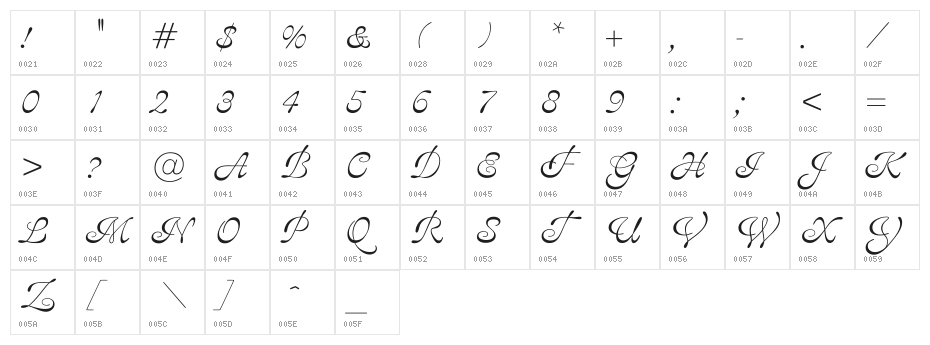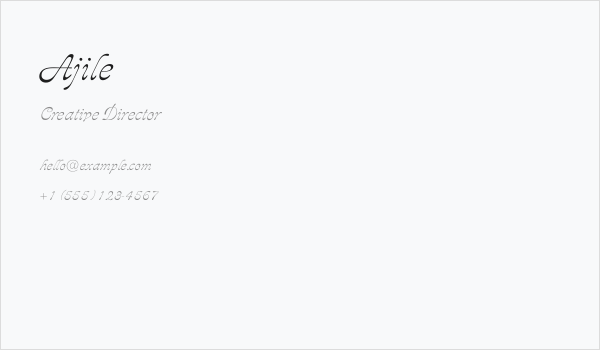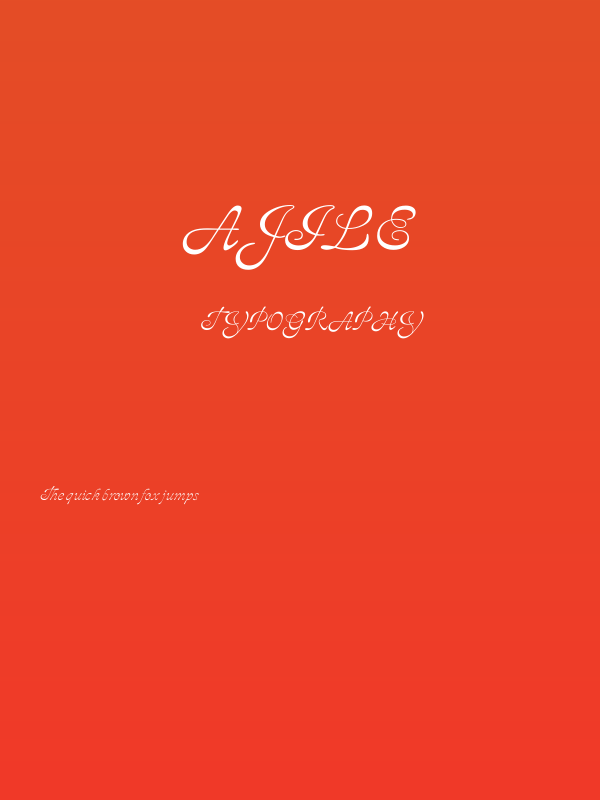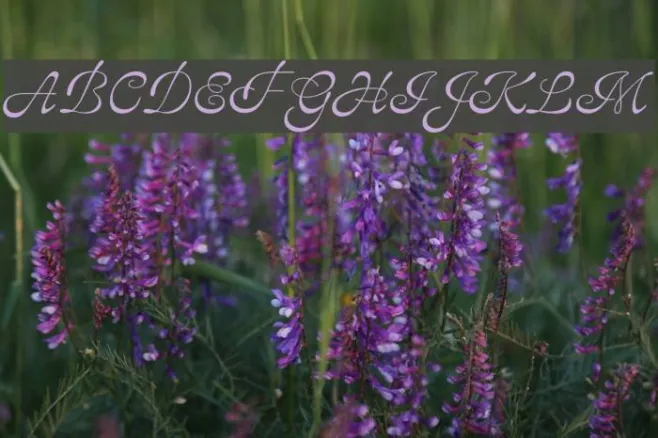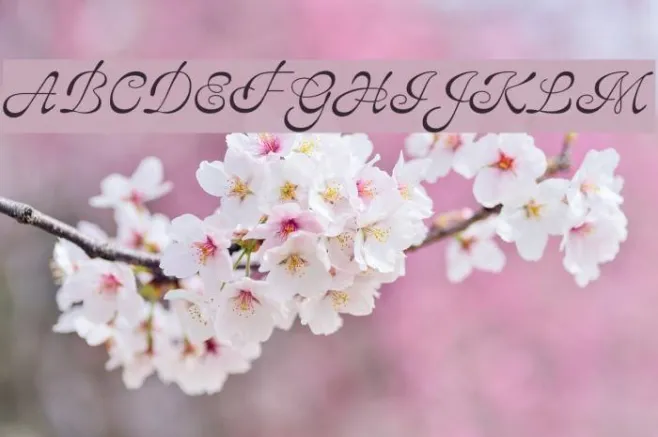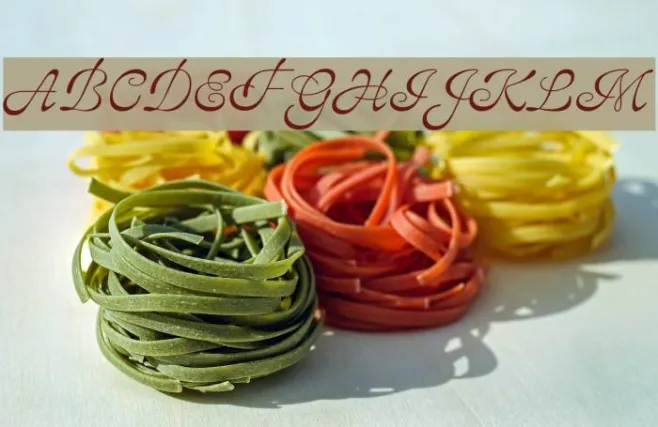
Ajile Font
✎ Calligraphic
Ajile Description
This elegant script font features a flowing, cursive style with delicate, swirling strokes that give it a sophisticated and graceful appearance. The uppercase letters are characterized by their ornate loops and flourishes, while the lowercase letters maintain a consistent fluidity, enhancing the overall aesthetic. The numbers and special characters are designed with similar attention to detail, ensuring a cohesive look across all elements. This font's intricate design makes it ideal for projects that require a touch of elegance and refinement.
| Overall Style | Elegant |
| Use Case | Logos, Invitations, Decorative text |
| Proposed Projects | Ideal for wedding invitations, formal event programs, elegant branding, and high-end product packaging. |